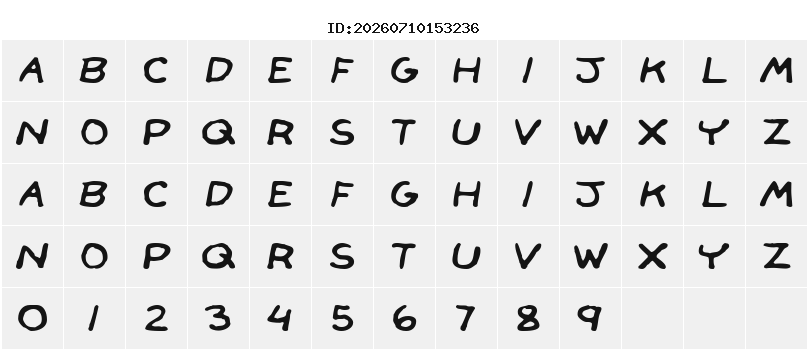
• Font Name: Face Front
• Font ID: S.JohnRoss: Face Front: 2001
• Full Font Name: Face Front
• PostScript Name: FaceFront
• Character Count: 108
• Designer: S. John Ross
About Face Front.ttf
Face Front.ttf is a modern, elegant sans-serif font designed for ultimate readability and visual harmony. Perfect for branding, headlines, web design, and print materials.